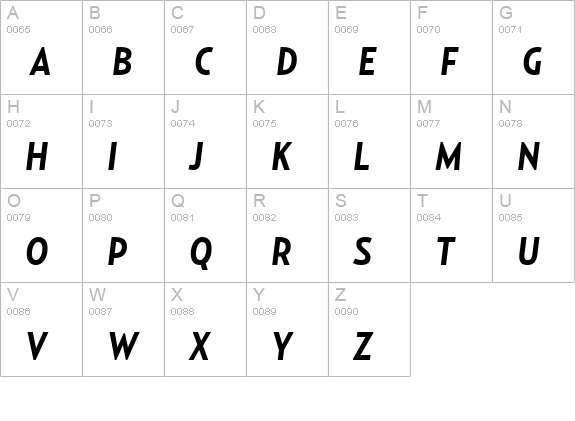
RelayCond-BoldItalic is a stylish and sophisticated font that adds a touch of elegance to any design project. With its bold and italicized characters, this font stands out with a powerful presence. The unique combination of condensed letterforms and slanted italics creates a dynamic and modern look, making it perfect for headlines, logos, and branding materials. What sets RelayCond-BoldItalic apart is not only its exceptional design but also the fact that it is available for free. That's right, you can freely download this impressive font at FontsMarket.com. Whether you are a professional designer or a casual enthusiast, having access to high-quality fonts without any cost is a fantastic opportunity. RelayCond-BoldItalic is a versatile font that can be used across various design mediums. Its legibility and readability make it suitable for both print and digital projects, ensuring that your message is conveyed with clarity. The clean and sharp lines of this font add a contemporary touch, while the boldness and italics inject a sense of drama and emphasis. Whether you are working on a poster, website, or packaging design, RelayCond-BoldItalic is the perfect choice to make your project stand out. Its versatility and aesthetic appeal make it a reliable option for any creative endeavor. Download this font today at FontsMarket.com and elevate your designs to new heights.